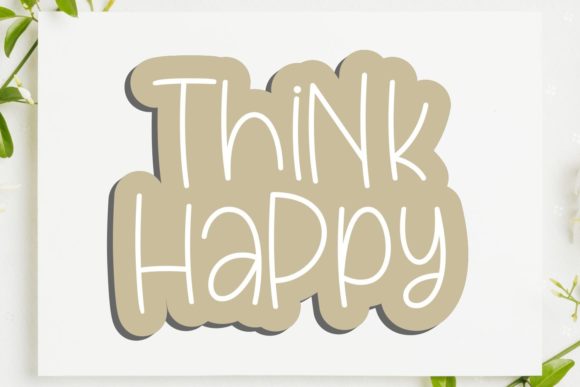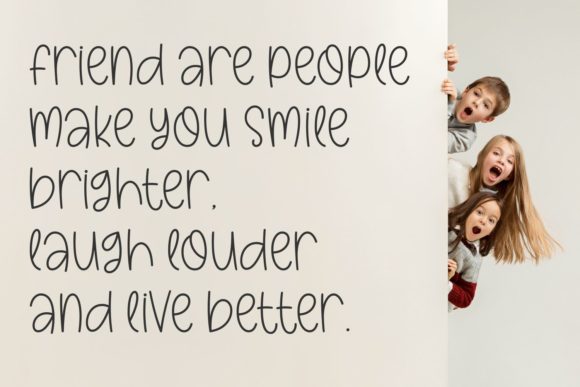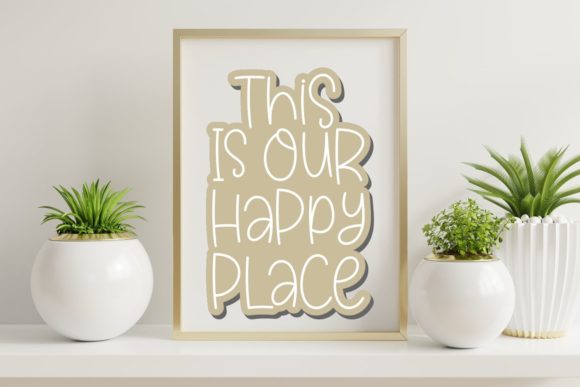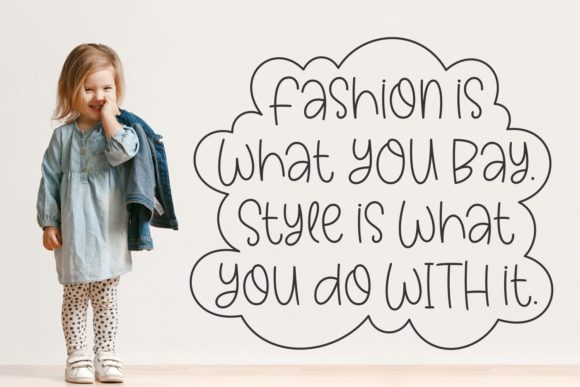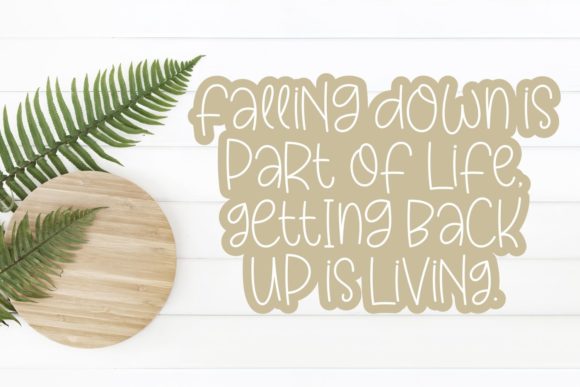
Think Happy Font
About Think Happy Font
Think Happy is a fun and quirky handwritten font, perfectly suitable for your next creative projects! Use this cool typeface to add an authentic vibe to product packaging, name tags, watermarks, photography, social media posts, and many others!